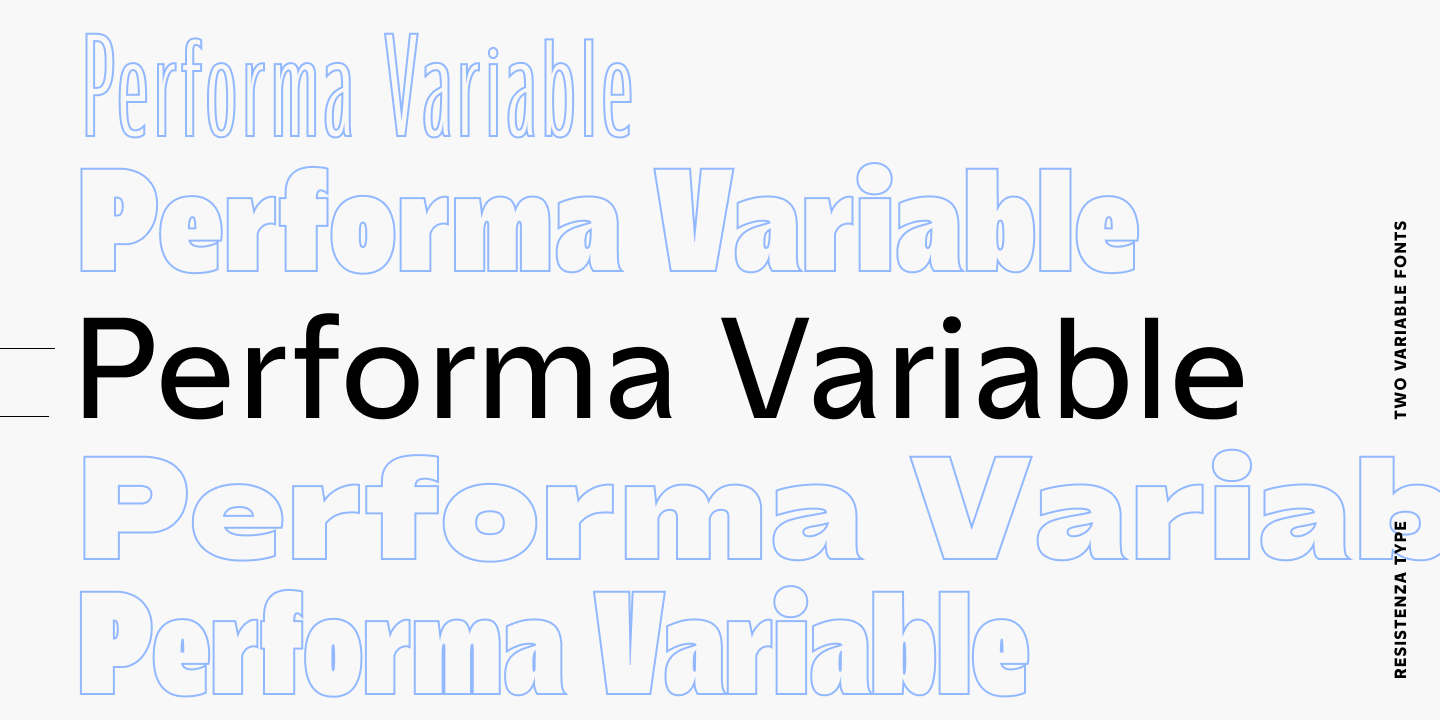
50% OFF ENDS SOON 🔥 A versatile variable font that seamlessly blends geometric structure with grotesque warmth. With two finely tuned axes—Weight and Width—plus an expressive Italic companion, Performa offers a dynamic typographic system in a single, flexible file. From ultra-light, condensed styles to bold, extended widths, Performa adapts effortlessly to a wide range of creative and professional applications. Whether you're designing sleek interfaces, editorial layouts, or bold brand identities, Performa delivers consistent style and responsive performance. Crafted for clarity and balance, Performa features open counterforms and smooth letter shapes for optimal readability. Subtle angular details introduce energy and personality, while its variable design ensures smooth transitions between styles—making it as functional as it is expressive. Optimized for digital and print alike, Performa's responsive flexibility and polished aesthetic make it ideal for editorial design, web typography, packaging, signage, and beyond. Wherever typography demands both adaptability and character, Performa is ready to perform. Hurry! Sale ends tonight, September 9th at 11:59 p.m. EDT. 2 Variables for $490 $245 | |